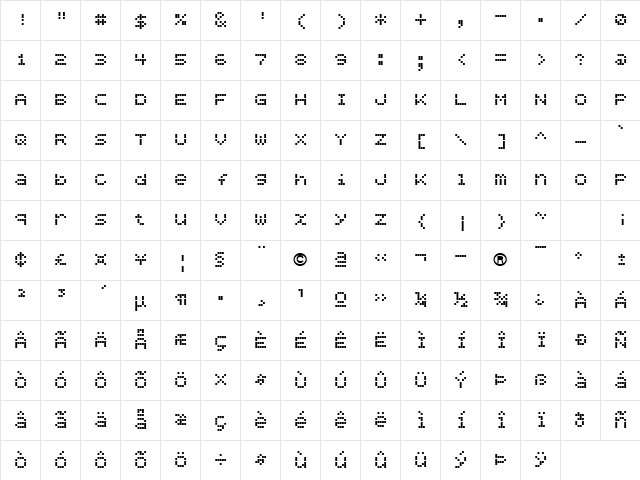
Complete Bubbledot ICG Coarse Pos Regular glyph index. Displaying only characters natively supported by Bubbledot ICG Coarse Pos Regular font.
Bubbledot ICG Coarse Pos is rooted in pixel-grid construction, making it a natural fit for game UI, retro computing aesthetics, and digital nostalgia projects.
Pro Tip: Use Bubbledot ICG Coarse Pos at sizes that align with its pixel grid for the sharpest rendering - scaling to non-integer multiples can introduce unwanted blur.